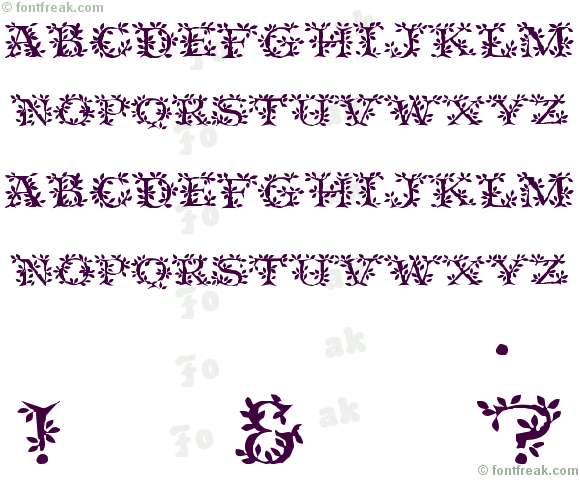
Tender Regular
About Tender
Tender by David Rakowski is a unique decorative font that blends whimsical charm with a touch of elegance. Characterized by its intricate design, this font features delicate strokes and an organic feel, making it perfect for various creative projects. The visual characteristics of Tender include a moderate stroke weight with varied contrast, which adds depth and interest to each character. The spacing is well-balanced, ensuring readability while preserving its artistic flair. Decorative elements such as leaf motifs and playful curves further enhance its appeal, giving it a nature-inspired aesthetic that is both inviting and enchanting.
This font is particularly well-suited for specific use cases, such as wedding invitations, where its romantic vibe can set the perfect tone. Additionally, it works wonderfully for restaurant menus, helping to create a cozy atmosphere that invites guests to enjoy their dining experience. Tender is also ideal for greeting cards and stationery, providing a personalized touch for special occasions. Graphic designers and content creators will find it invaluable for branding projects, especially when aiming to evoke a warm and friendly identity.
What sets the Tender font apart is its ability to convey emotion and personality through its artistic design. Its enchanting style can transform ordinary text into a visual narrative that resonates with audiences. For those looking to elevate their projects, a Tender font free download is a fantastic opportunity to incorporate this captivating typeface into their work.